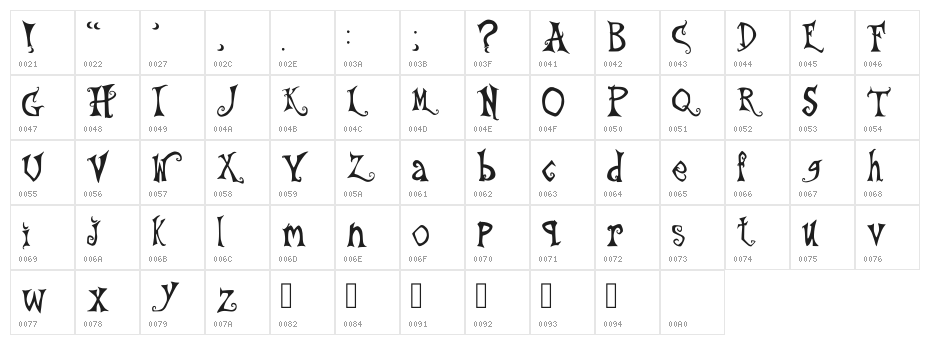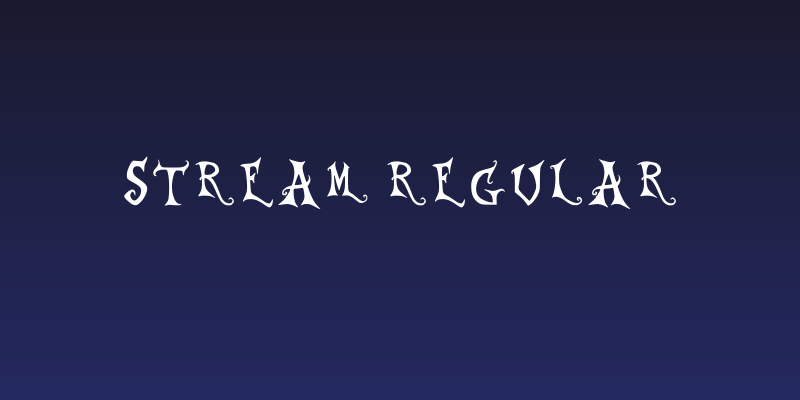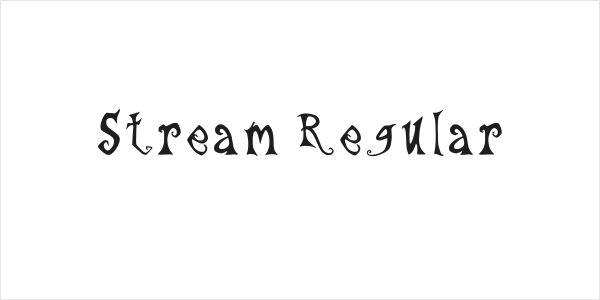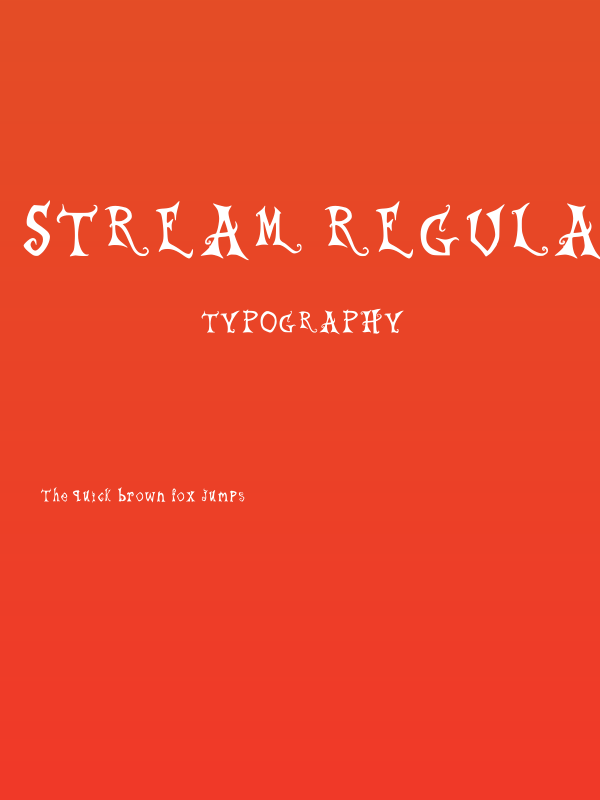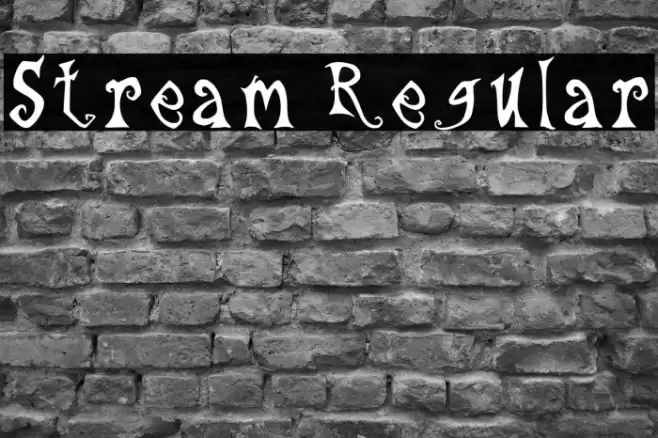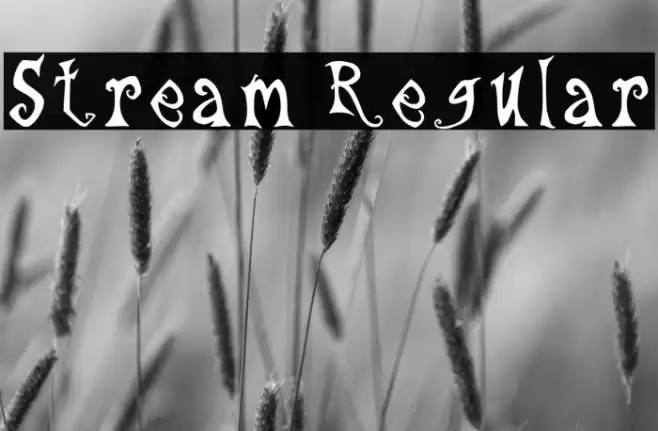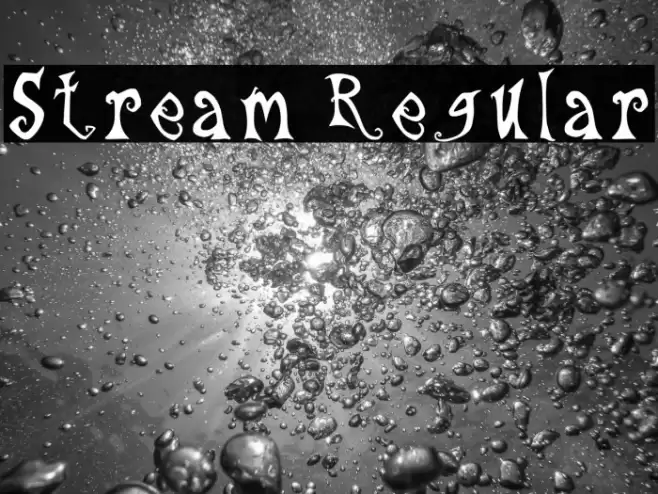
Stream Regular Font
Stream Regular Description
This font features a whimsical and decorative style, characterized by its playful curves and unique embellishments on each letter. The uppercase letters exhibit a bold presence with intricate swirls and pointed serifs, creating a sense of fantasy and creativity. The lowercase letters maintain a consistent theme with varied stroke thickness and ornamental details that add to its charm. The numbers and special characters follow the same artistic approach, ensuring a cohesive look throughout. This font's distinct personality makes it suitable for projects that require a touch of elegance and imagination.
| Use Case | Headlines, Logos, Invitations |
| Proposed Projects | Ideal for fantasy-themed designs, children's books, creative branding, and decorative invitations. |